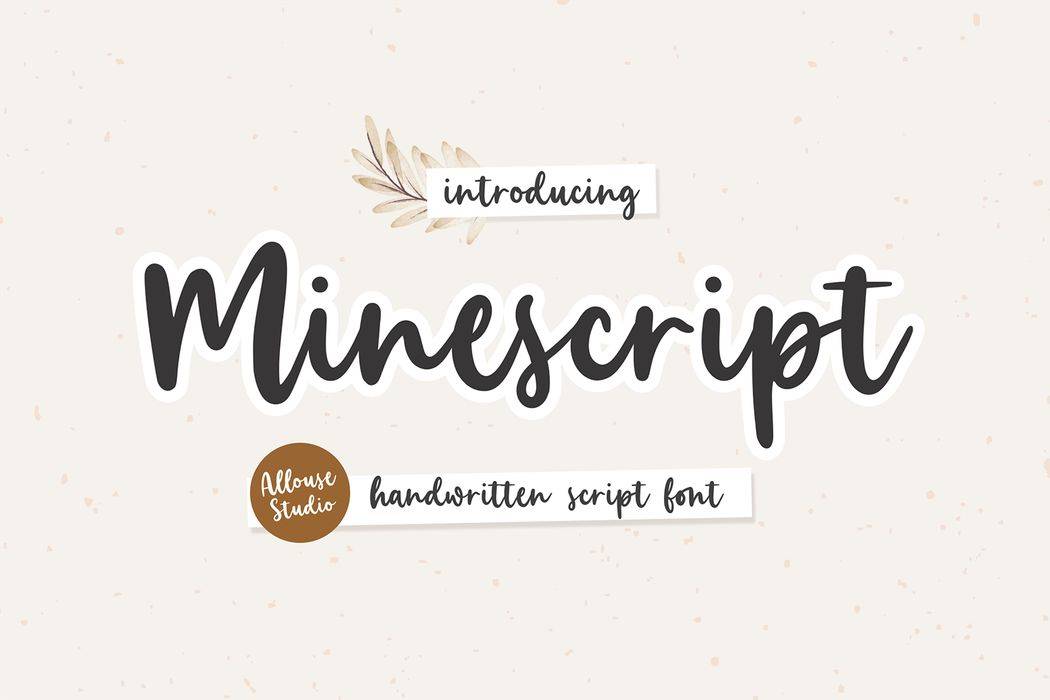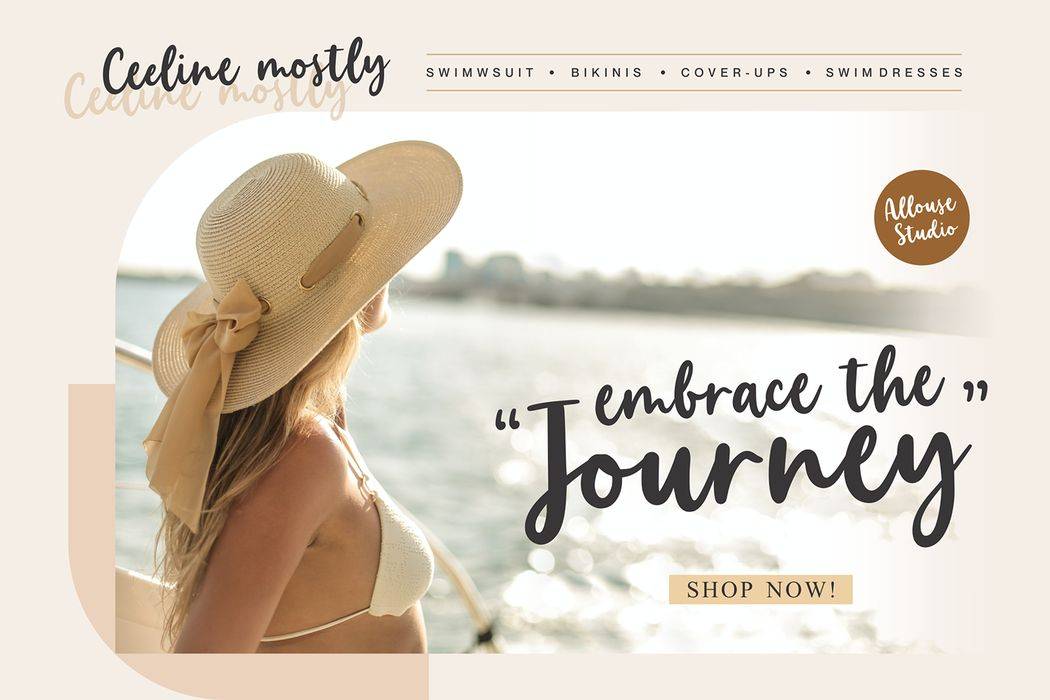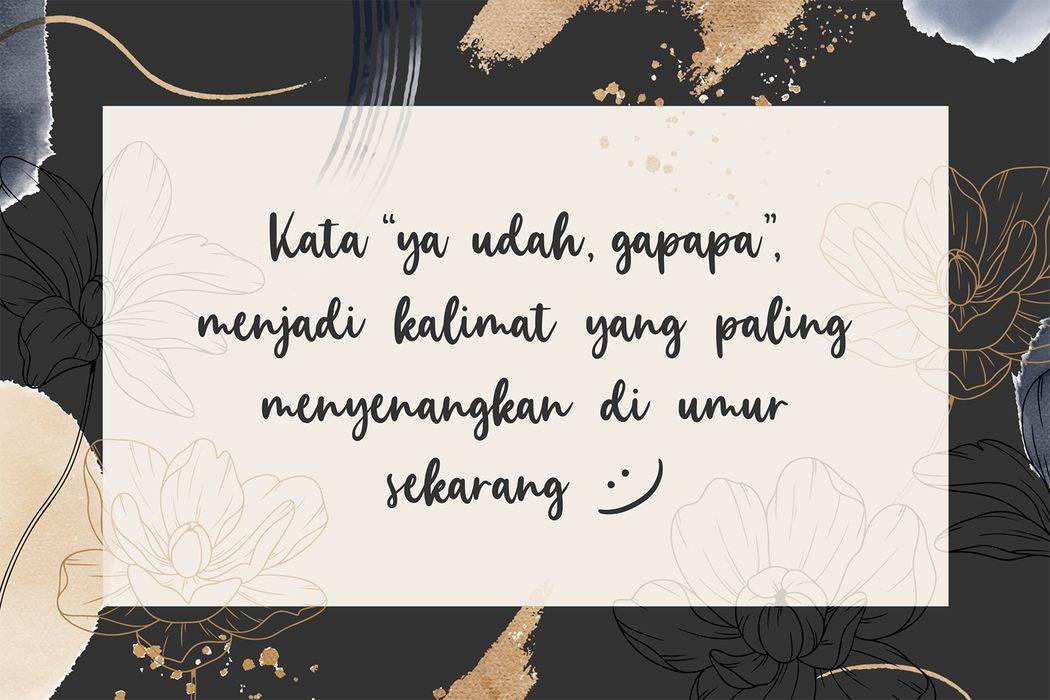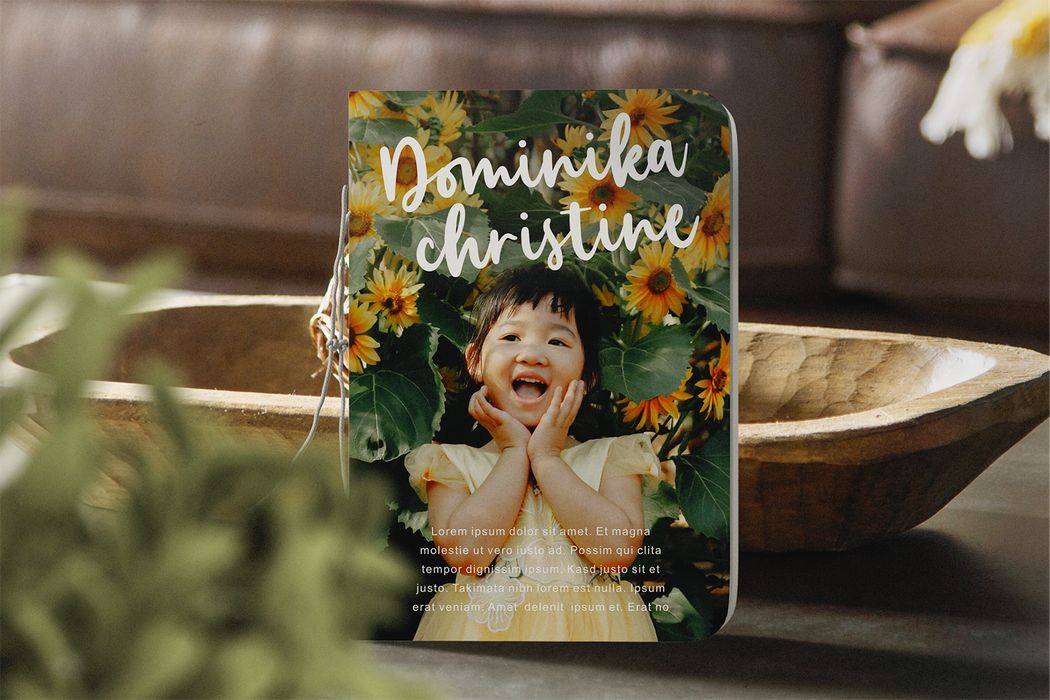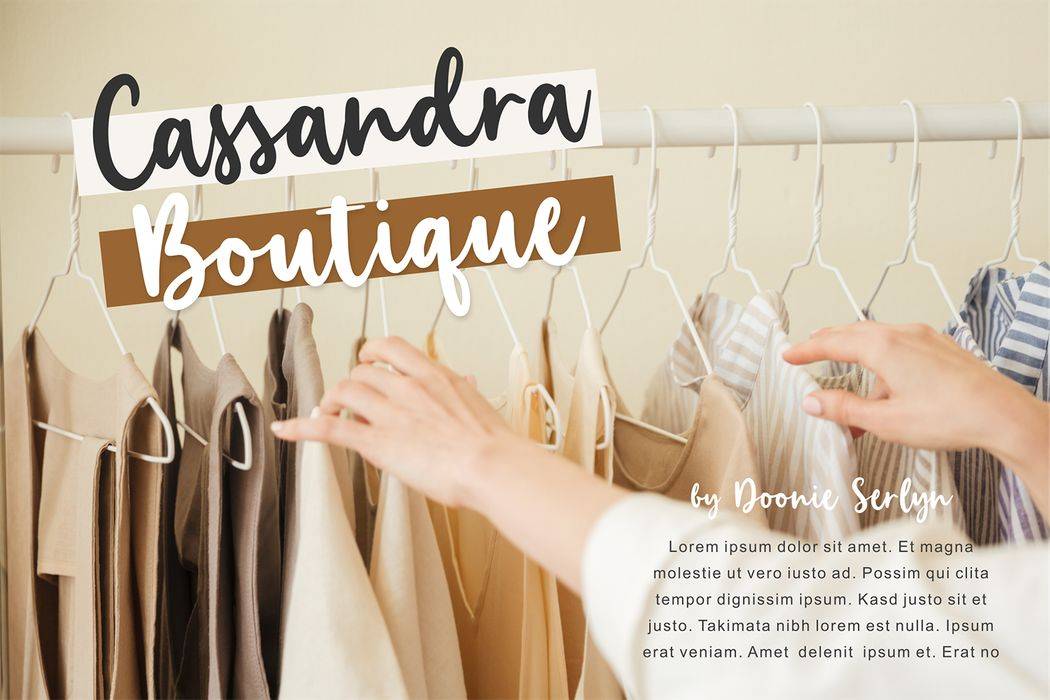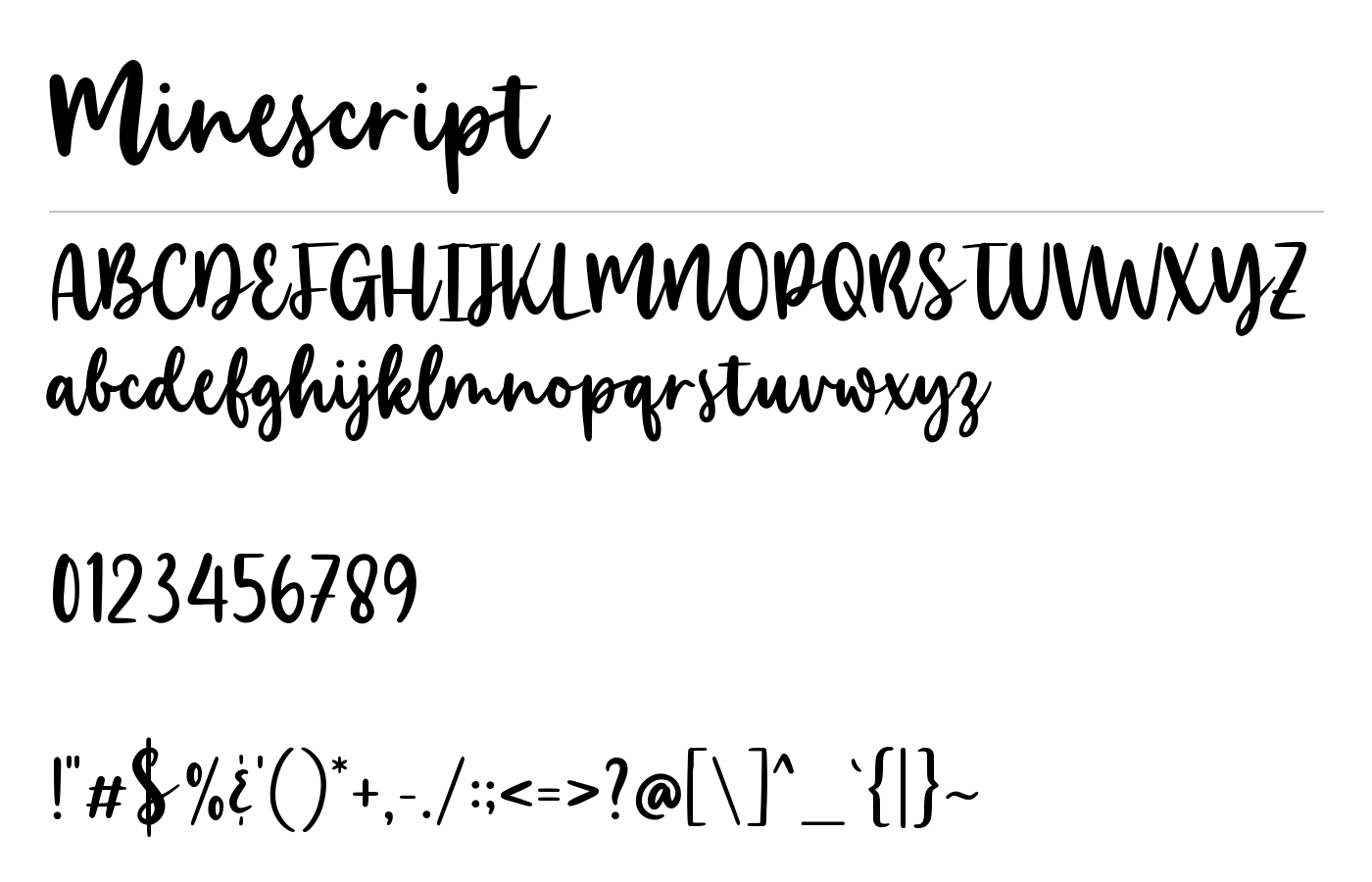
Minescript is a playful and modern script font with a hand-drawn feel, featuring smooth, rounded strokes and a friendly, casual style. Its balanced weight and clear letterforms make it versatile for use in branding, invitations, and creative designs where a warm, approachable vibe is desired. This font works well for both headlines and short text, bringing a lively, personal touch to any project.
Minescript Font
About Minescript Font